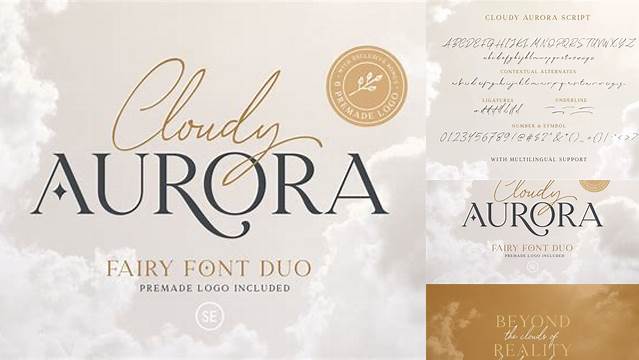
Cloudy Aurora: Free Font Download For Stunning Designs
Hey guys! Are you on the hunt for a font that's as dreamy and captivating as the Northern Lights? Well, look no further! We're diving deep into the world of Cloudy Aurora, a free font that’s making waves in the design community. This font is seriously versatile and can add a touch of magic to any project you're working on. Let's explore everything you need to know about Cloudy Aurora and how you can use it to create stunning designs. Get ready to be inspired!
1. What is Cloudy Aurora Font?
So, what exactly is the Cloudy Aurora font? Simply put, it’s a beautiful, free typeface that’s designed to evoke the ethereal beauty of the aurora borealis. Think flowing lines, a touch of whimsy, and an overall feeling of serenity. The font designers aimed to capture the dreamy, almost otherworldly quality of the Northern Lights in each glyph. This makes Cloudy Aurora perfect for projects where you want to convey a sense of calm, creativity, or even a hint of mystery. It’s the kind of font that catches the eye and leaves a lasting impression. Whether you’re working on a website, a logo, or a poster, Cloudy Aurora can add that special touch that makes your design stand out. But don’t just take my word for it; let’s delve deeper into its specific characteristics and see why it’s such a popular choice among designers.
2. Key Features of Cloudy Aurora Font
The key features of Cloudy Aurora font are what truly set it apart and make it a go-to choice for many designers. First off, it boasts a unique and elegant design, characterized by its flowing lines and graceful curves. This gives it a sophisticated yet approachable feel, perfect for a wide range of projects. The font also includes a variety of weights and styles, offering versatility in your design choices. Whether you need a light touch for body text or a bold statement for headlines, Cloudy Aurora has got you covered. Another standout feature is its readability. Despite its artistic flair, the font remains highly legible, ensuring your message is clear and easy to understand. Plus, the font often comes with ligatures and alternates, adding an extra layer of customization and uniqueness to your work. These features combine to make Cloudy Aurora not just visually appealing, but also practical and highly functional for various design needs. It’s like having a secret weapon in your design arsenal!
5. Cloudy Aurora Font Styles and Weights
One of the things that makes Cloudy Aurora such a versatile font is its range of styles and weights. It’s not just a one-trick pony, guys! You'll often find it available in several weights, such as light, regular, bold, and sometimes even extra-bold. This allows you to create visual hierarchy and emphasis in your designs. Imagine using the light weight for elegant body text and the bold weight for eye-catching headlines – it’s all about creating balance and impact. In addition to weights, Cloudy Aurora might also come in different styles, like italic or condensed versions. The italic style can add a touch of sophistication or call attention to specific words or phrases, while the condensed style is perfect for when you need to squeeze more text into a limited space. Some versions of Cloudy Aurora even include stylistic alternates, which are different versions of certain characters that can give your text a unique flair. For example, you might find alternate versions of the letters “a” or “g” that have a slightly different shape or flourish. By mixing and matching these styles and weights, you can achieve a wide variety of looks and feels, making Cloudy Aurora a truly adaptable font for any project.
6. Best Uses for Cloudy Aurora Font in Design Projects
So, where does Cloudy Aurora really shine? What types of design projects are a perfect match for this dreamy typeface? Well, its elegant and slightly whimsical nature makes it ideal for a whole range of applications. Think branding projects for businesses that want to convey a sense of creativity, serenity, or sophistication. Cloudy Aurora can work wonders for logos, business cards, and website headers. It’s also a fantastic choice for editorial design, such as magazine layouts or book covers, where its readability and unique style can really enhance the visual appeal. For social media graphics, Cloudy Aurora can add a touch of personality and make your posts stand out in a crowded feed. And don’t forget about invitations and stationery! If you're designing wedding invitations, greeting cards, or thank-you notes, this font can bring a touch of elegance and charm. Basically, any project that needs a dash of magic and sophistication is a great candidate for Cloudy Aurora. But don’t be afraid to experiment and see how it can elevate your designs in unexpected ways!
7. Pairing Cloudy Aurora with Other Fonts
Font pairing is an art, my friends, and knowing how to combine Cloudy Aurora with other typefaces can really take your designs to the next level. The key is to find fonts that complement Cloudy Aurora without competing with it. Since Cloudy Aurora is often a display font with a unique personality, it typically pairs well with simpler, more neutral fonts for body text. Think classic sans-serif fonts like Open Sans, Montserrat, or Lato. These fonts are clean and easy to read, allowing Cloudy Aurora to shine in headings and titles. Another great option is to pair Cloudy Aurora with a simple serif font like Merriweather or Playfair Display. These fonts have a touch of elegance without being too overpowering, creating a harmonious balance. When choosing a font pairing, consider the overall tone and style of your project. If you’re going for a modern and minimalist look, a clean sans-serif is the way to go. If you want something a bit more traditional or sophisticated, a serif font can be a great choice. The goal is to create a visual hierarchy and ensure that your typography is both beautiful and functional. So, don’t be afraid to experiment, mix and match, and see what combinations work best for you!
8. Designing Logos with Cloudy Aurora Font
Creating a memorable logo is crucial for any brand, and the font you choose plays a massive role in conveying the right message. Cloudy Aurora can be a fantastic choice for logos, especially if you're aiming for a brand identity that feels elegant, creative, or even a little bit magical. Its flowing lines and unique character make it stand out, ensuring your logo is both eye-catching and memorable. When designing a logo with Cloudy Aurora, it’s important to consider the overall aesthetic of your brand. This font works particularly well for businesses in creative industries, such as photography, design, or even wellness and beauty. It can also be a great fit for brands that want to project a sense of sophistication or tranquility. Think about how you can incorporate the font into your logo design. You might use Cloudy Aurora for the entire logo, or you could pair it with a simpler font for a more balanced look. Experiment with different weights and styles to see what works best. You might also consider adding a unique symbol or icon to complement the font. The key is to create a logo that is not only visually appealing but also reflects the core values and personality of your brand. With Cloudy Aurora, you can create a logo that truly shines.
9. Using Cloudy Aurora in Website Design
Your website is often the first impression your brand makes, so nailing the typography is essential. Cloudy Aurora can be a stunning addition to your website’s design, bringing a touch of elegance and personality to your online presence. However, it’s important to use it strategically to ensure a seamless user experience. Think about where Cloudy Aurora will have the most impact. It works beautifully for headings, titles, and navigation menus, where its unique style can capture visitors’ attention. For body text, it’s generally best to stick with a more legible font, such as a clean sans-serif like Open Sans or Roboto. This ensures that your content is easy to read and doesn’t strain the eyes. When incorporating Cloudy Aurora into your website, consider the overall design and branding. Does the font align with your brand’s aesthetic? Does it complement your color scheme and imagery? It’s also crucial to think about website performance. Using too many different fonts or overly ornate typefaces can slow down your site’s loading speed, which can negatively impact user experience and SEO. So, use Cloudy Aurora judiciously and make sure your website remains fast and user-friendly. With the right approach, Cloudy Aurora can elevate your website’s design and make a lasting impression on your visitors.